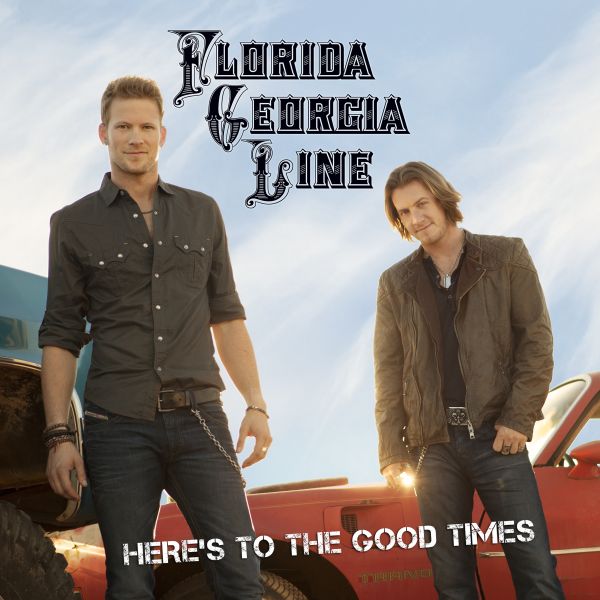
Florida Georgia Line Font
BandFlorida Georgia Line is an American country music duo consisting of Brian Kelley and Tyler Hubbard. They are best known for their blend of traditional country music and elements of hip-hop and rock.
The logo of the Florida Georgia Line, displayed on their first album "Here's to the Good Times," is written in all capital letters and likely uses the Rough Riders font. This western-style font takes its inspiration from the 1860s Beach Creek Railroad Co. logo.